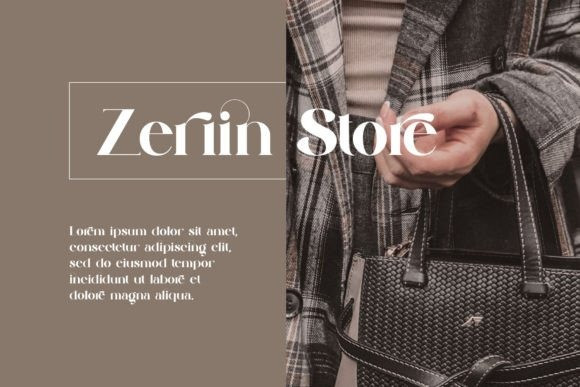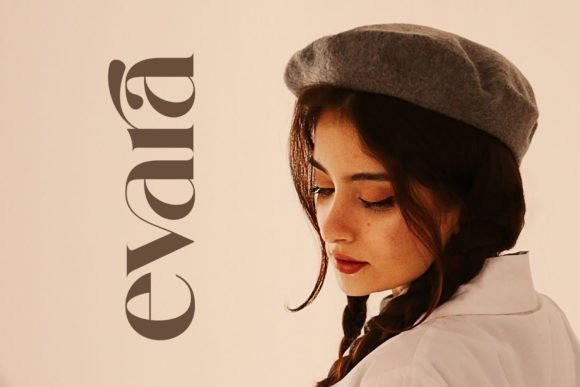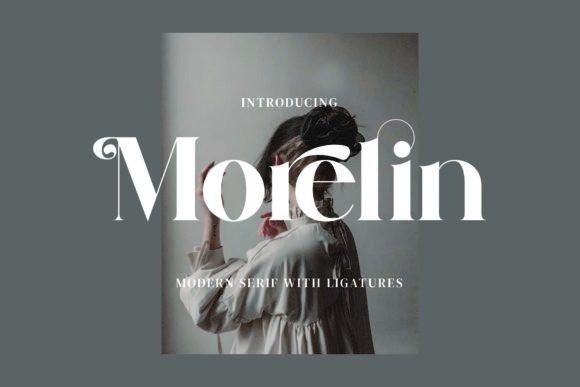
Morelin Font
Morelin Font is an elegant and classy serif typeface. This font is both modern and nostalgic and works great for logos, magazine, social media and so much more.